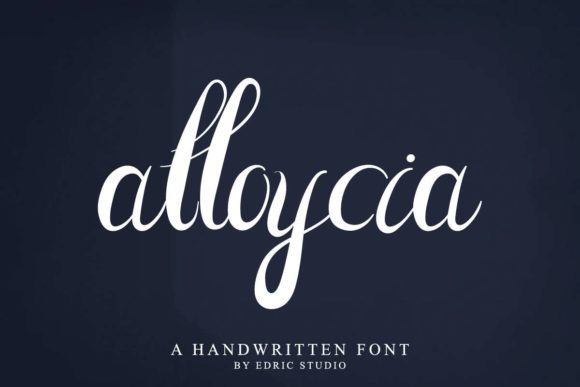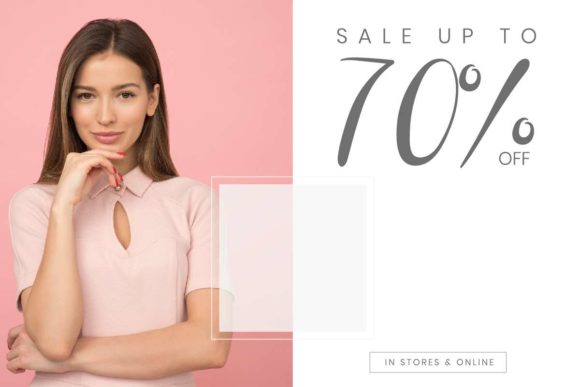
About Alloycia Font
Alloycia is a cute and casual handwritten font with an incredibly friendly feel. It features amazing ligatures that make this script incredibly versatile. Whether you’re looking for fonts for Instagram or calligraphy scripts for DIY projects, Alloycia will turn any creative idea into a true piece of art!